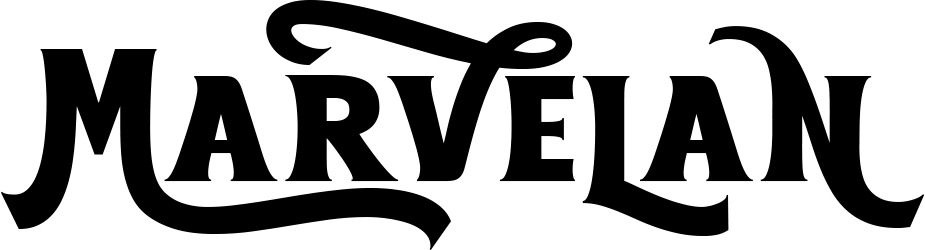
Marvelan Font
If you’ve been looking for a special font for your text layout, we might have your demand. This retro font comes in wavy and bold characters and fits great logos, posters, bag shops, and many more. Marvelan will add a casual feel to your text design but keep in mind that it doesn’t contain lowercase letters.